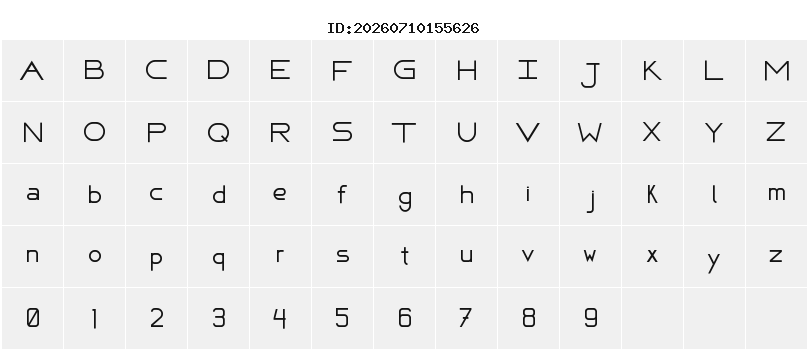
FAFERS Technical Font Preview
• Font Name: FAFERS Technical Font
• Full Font Name: FAFERS Technical Font
About FAFERS Technical Font.ttf
FAFERS Technical Font.ttf is a modern, elegant sans-serif font designed for ultimate readability and visual harmony. Perfect for branding, headlines, web design, and print materials.